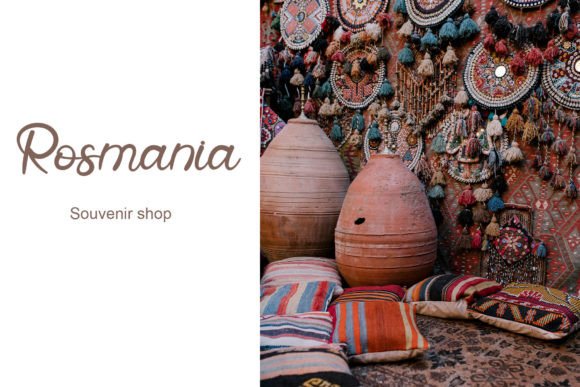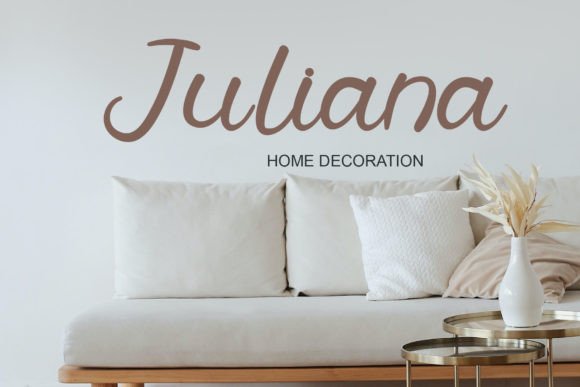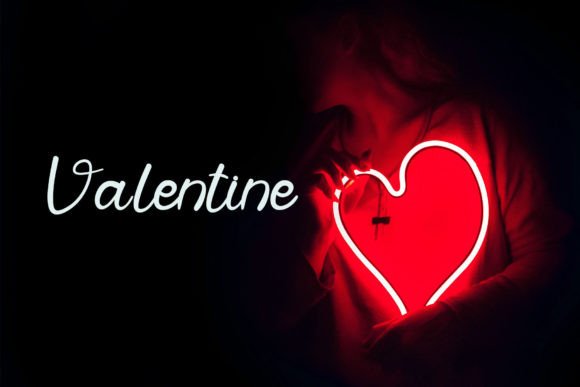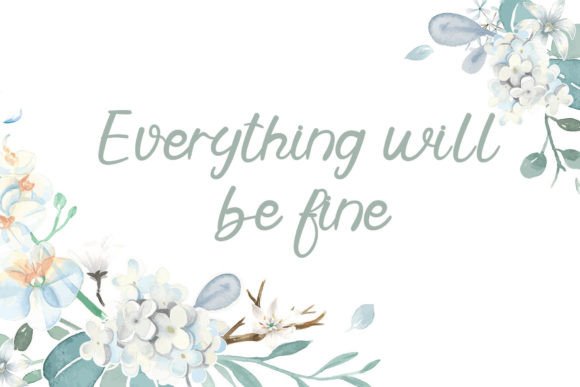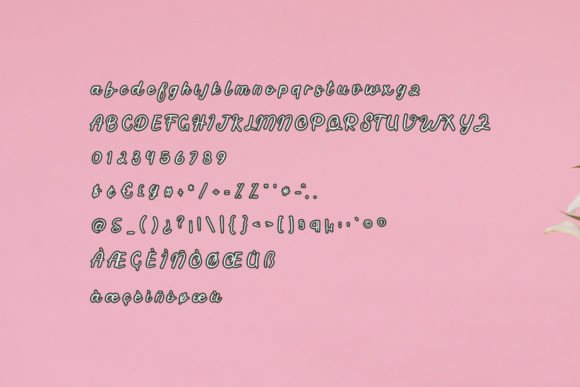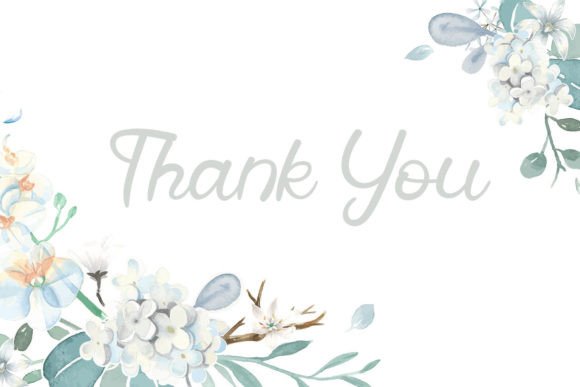
The Ultimate Guide to Flowers Font: Adding a Touch of Whimsy to Your Designs
An Honest Review of Flowers Font
So, what makes Flowers Font so special? Here are a few things I love about it:
- ✨ Cute and casual: Flowers Font has an incredibly friendly feel that’s perfect for designs that need a touch of whimsy.
- ✅ Versatile: Whether you’re creating social media graphics, calligraphy scripts, or DIY projects, this font adapts seamlessly.
- 💕 Elegant yet playful: The font’s handwritten style strikes the perfect balance between sophistication and playfulness.
Of course, no font is perfect, and Flowers Font has a few minor quirks:
- 🤔 Limited use in formal designs: While it’s amazing for creative projects, it might not be the best fit for more formal or corporate designs.
- ⚠️ Some letter combinations: As with any handwritten font, some letter combinations might not flow as smoothly as you’d like.
The Story Behind Flowers Font
While the actual origins of Flowers Font are unclear, it’s easy to imagine that it was created with the intention of spreading joy through design. Imagine a designer, surrounded by flowers and beautiful stationery, wanting to create a font that captures the essence of handmade, heartfelt creations. That’s the vibe Flowers Font gives off – a blend of playfulness, love, and attention to detail.
| What makes Flowers Font unique? | Its cute, casual, and friendly feel makes it perfect for creative projects that need a touch of whimsy. |
| Is Flowers Font suitable for body text? | While it’s primarily designed for display text, it can be used for short paragraphs of body text if you want to add a personal touch. |
| Can I use Flowers Font for my branding? | Absolutely! Flowers Font’s unique style can help your brand stand out, especially if you’re in a creative or lifestyle industry. |
Flowers Font is more than just a font – it’s a design companion that can elevate your creative projects and add a touch of personality to your designs. Whether you’re a designer, crafter, or hobbyist, this adorable handwritten font is sure to become a favorite in your toolkit.